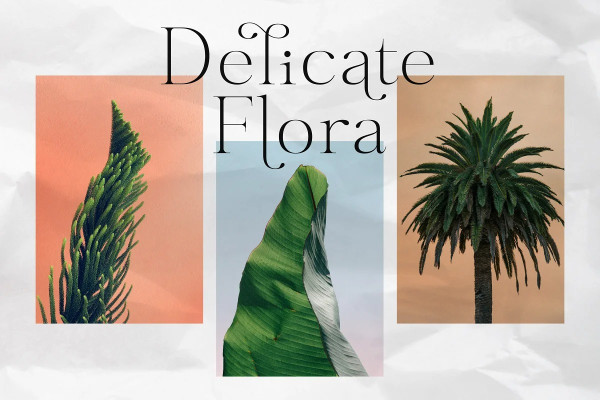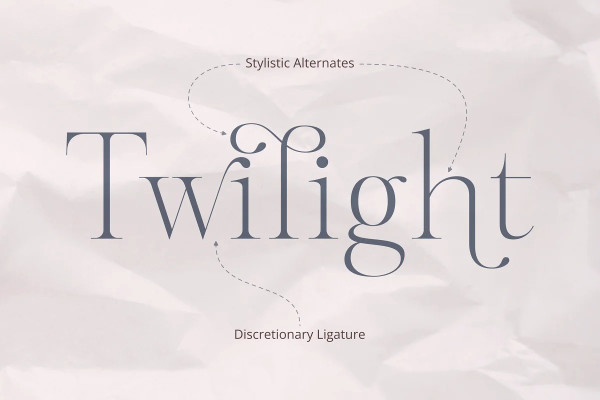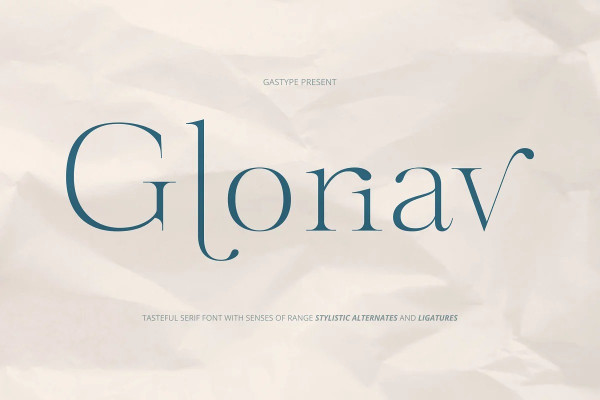
Gloriav Font
Gloriav Font, an elegant and tasteful serif font designed to exude timeless beauty. With its refined curves and intricate details, Gloriav Font captures attention effortlessly. Enhance your creative projects with the font’s extensive collection of standard and discretionary ligatures, allowing you to add a touch of finesse to your text. The font’s stylistic alternate characters offer even more versatility, enabling you to craft distinctive logos, compelling quotes, and fulfill a wide range of design needs.